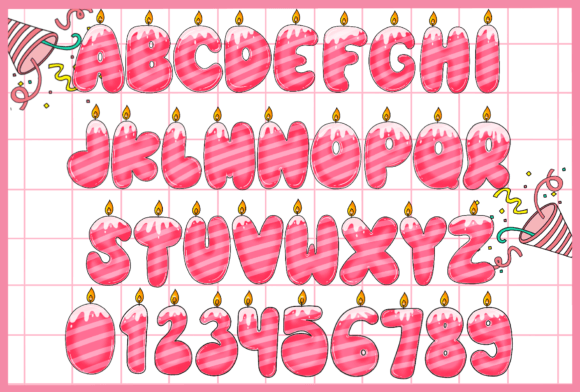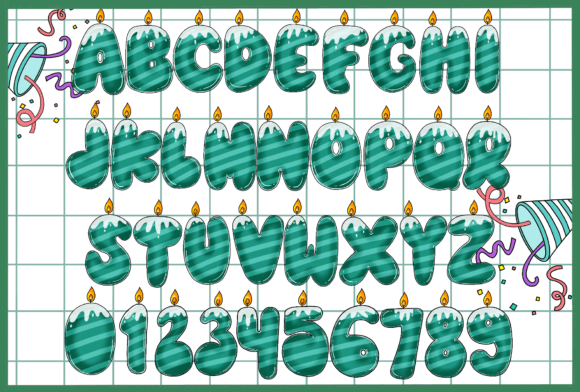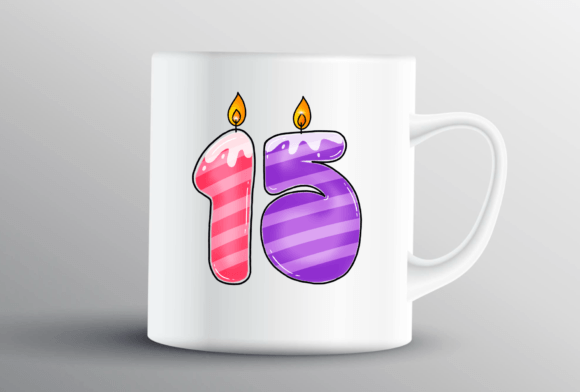
Birthday Font
Birthday is a lovely and cheerful decorative font perfect for all your festive, anniversary projects. It will be a great addition to your fonts collection.